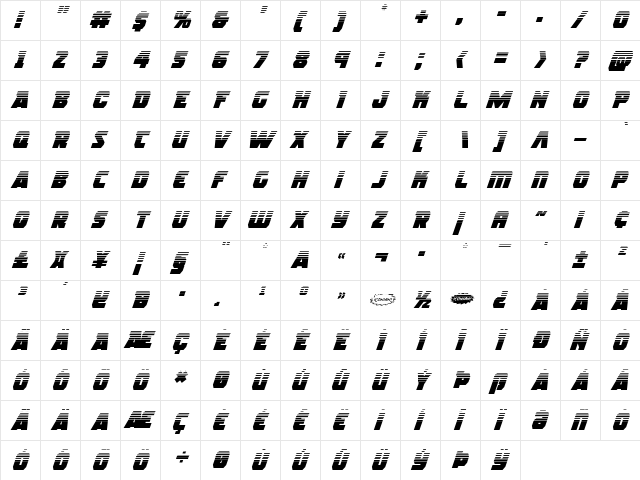
Rogue Hero Halftone Italic Italic
Design Context for Rogue Hero Halftone Italic Typeface
Rogue Hero Halftone Italic is a composed and adaptable typeface that performs quietly and consistently across a wide range of design contexts. Its italic angle brings a sense of urgency and motion to the letterforms.